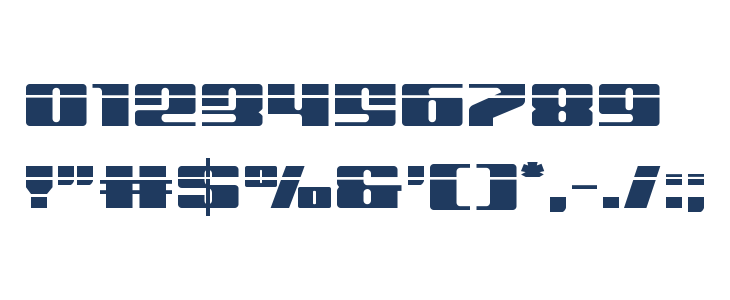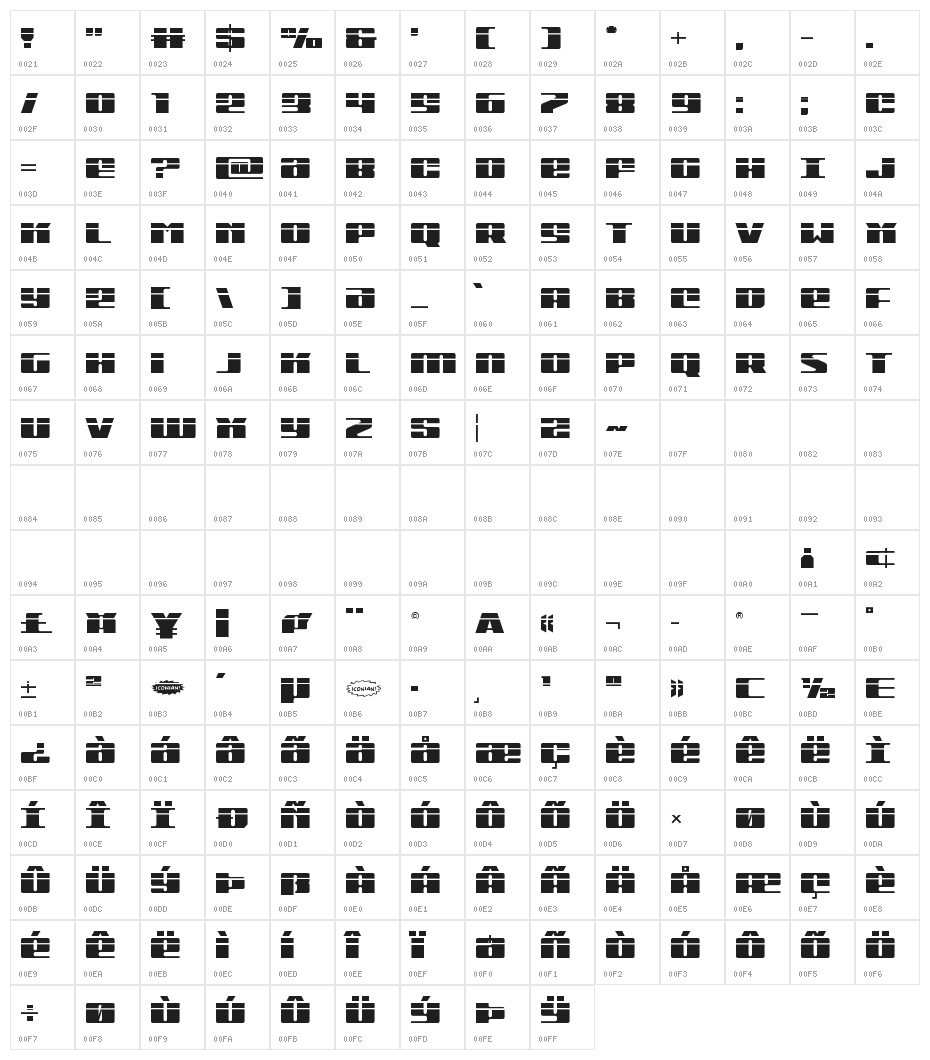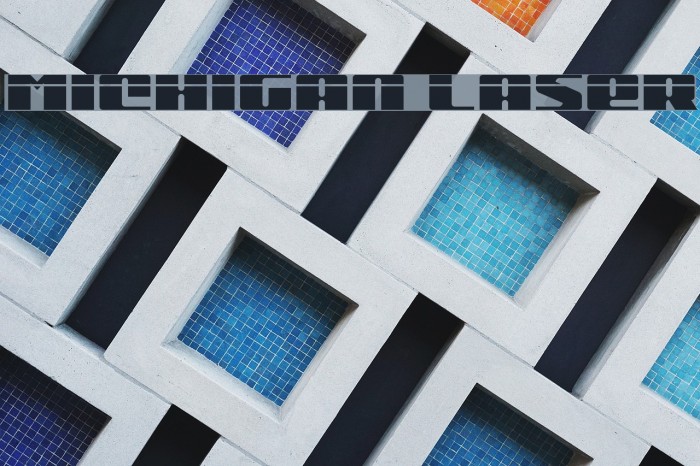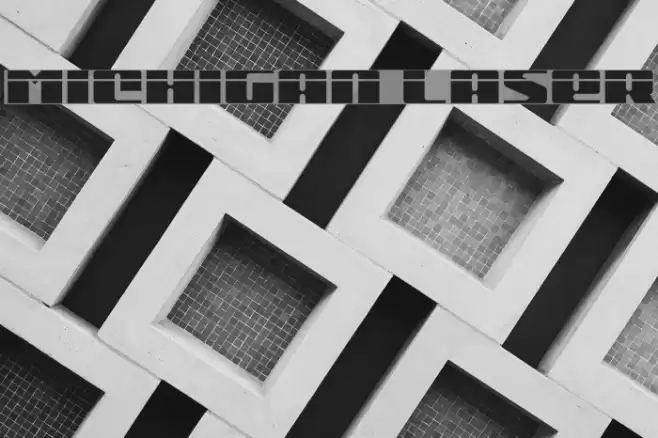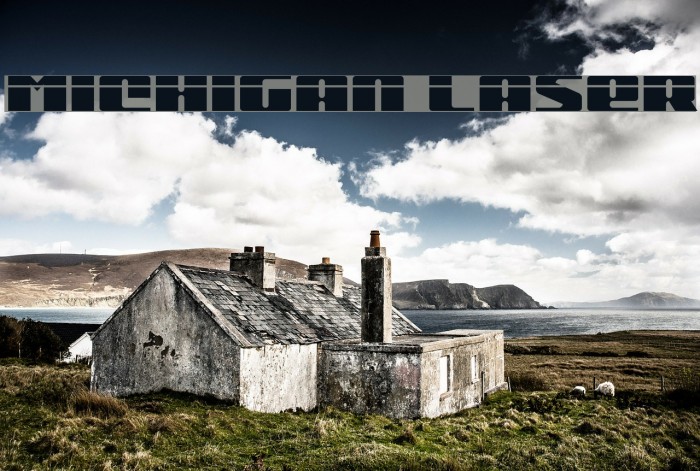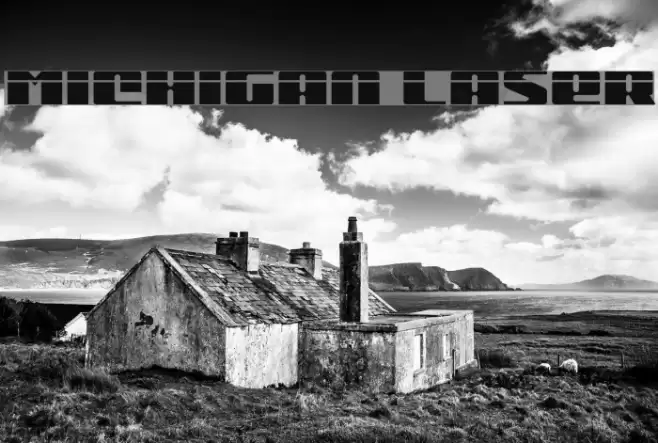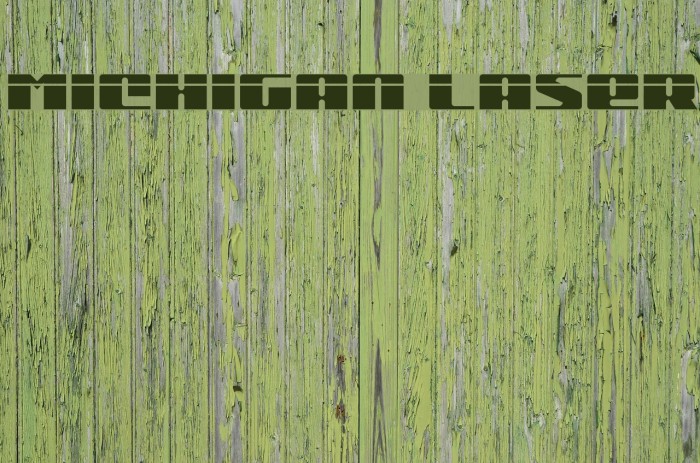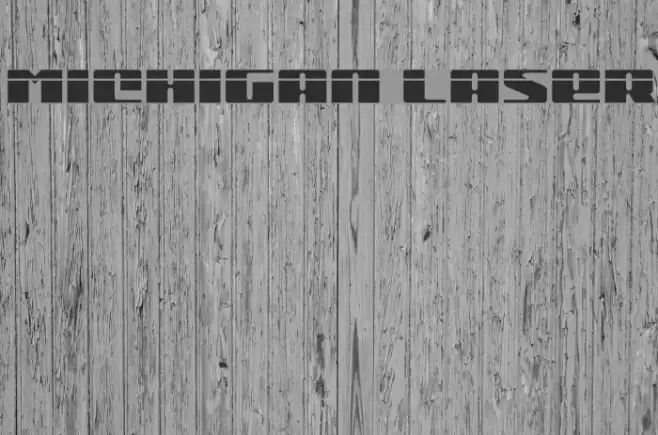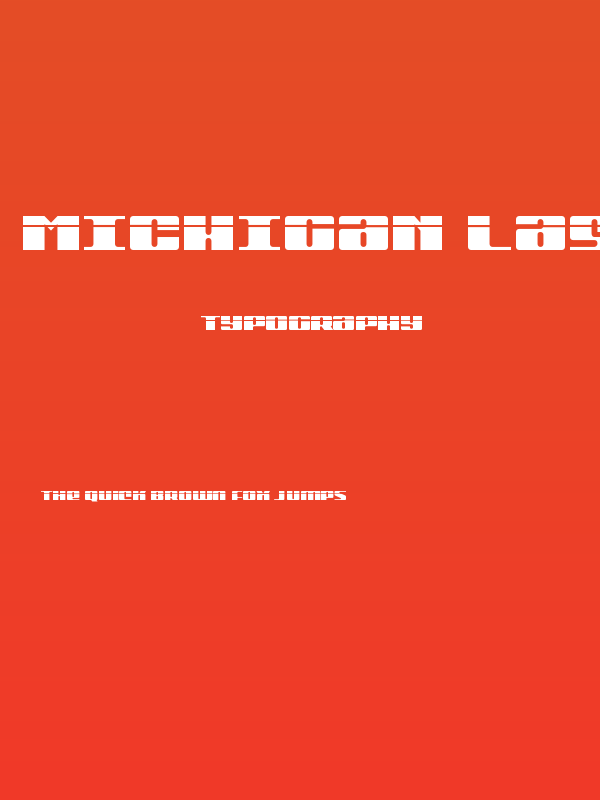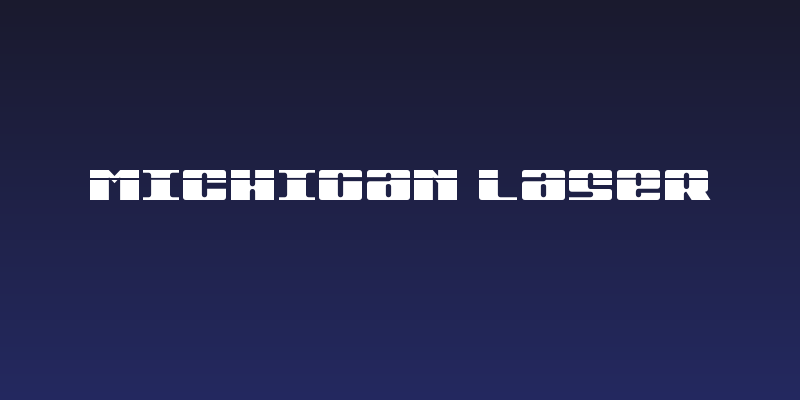
Michigan Laser Font
Michigan Laser Description
This font exhibits a bold, futuristic style with a strong geometric influence. The characters are constructed with solid, block-like forms, featuring distinct cut-out sections that add a unique, modern twist. The uppercase and lowercase letters maintain a consistent height, contributing to a uniform appearance. The numerals and special characters follow the same design principles, ensuring a cohesive look across all glyphs. This font's high-impact design makes it ideal for attention-grabbing applications.
| Proposed Projects | Ideal for technology branding, sci-fi themed projects, video game titles, and modern poster designs. |